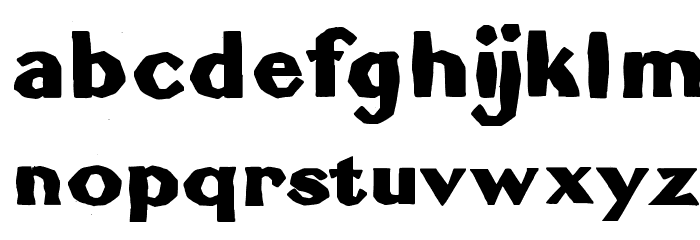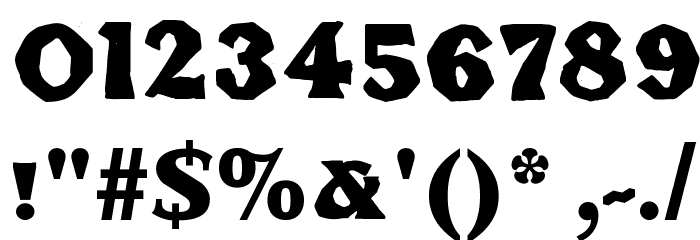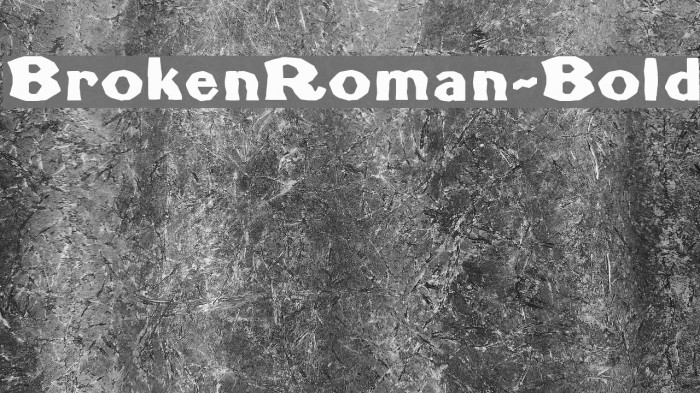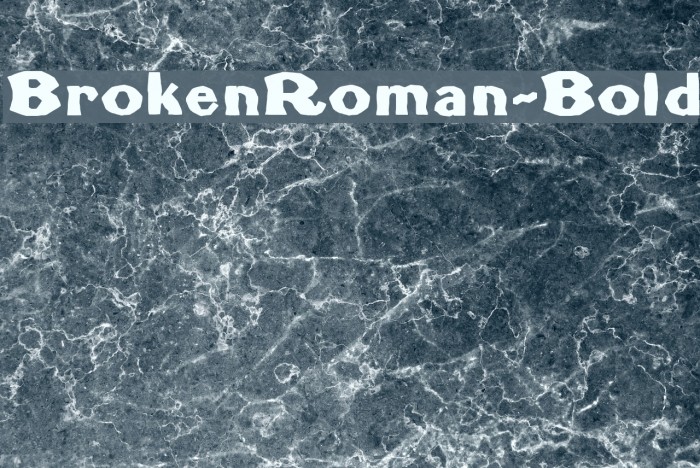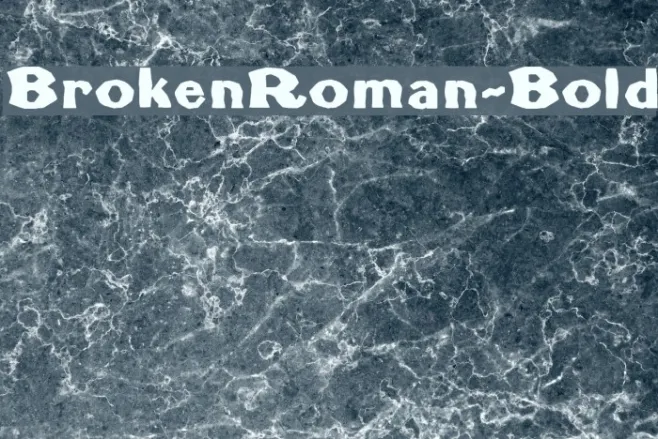
BrokenRoman-Bold Font
This font features a bold and distinctive style with a strong presence. The characters are designed with a broken, rough edge that gives them a unique, handcrafted appearance. The uppercase and lowercase letters maintain a consistent weight, providing a cohesive look across the alphabet. The numerals and special characters follow the same bold and rugged design, ensuring uniformity throughout. The font's style is reminiscent of vintage or medieval typefaces, yet it retains a modern twist with its boldness and clarity. Its high contrast in stroke thickness adds to its striking visual impact, making it suitable for attention-grabbing designs.
A bold, rugged font with a handcrafted, vintage appearance.
- Overall Style: Vintage, Decorative